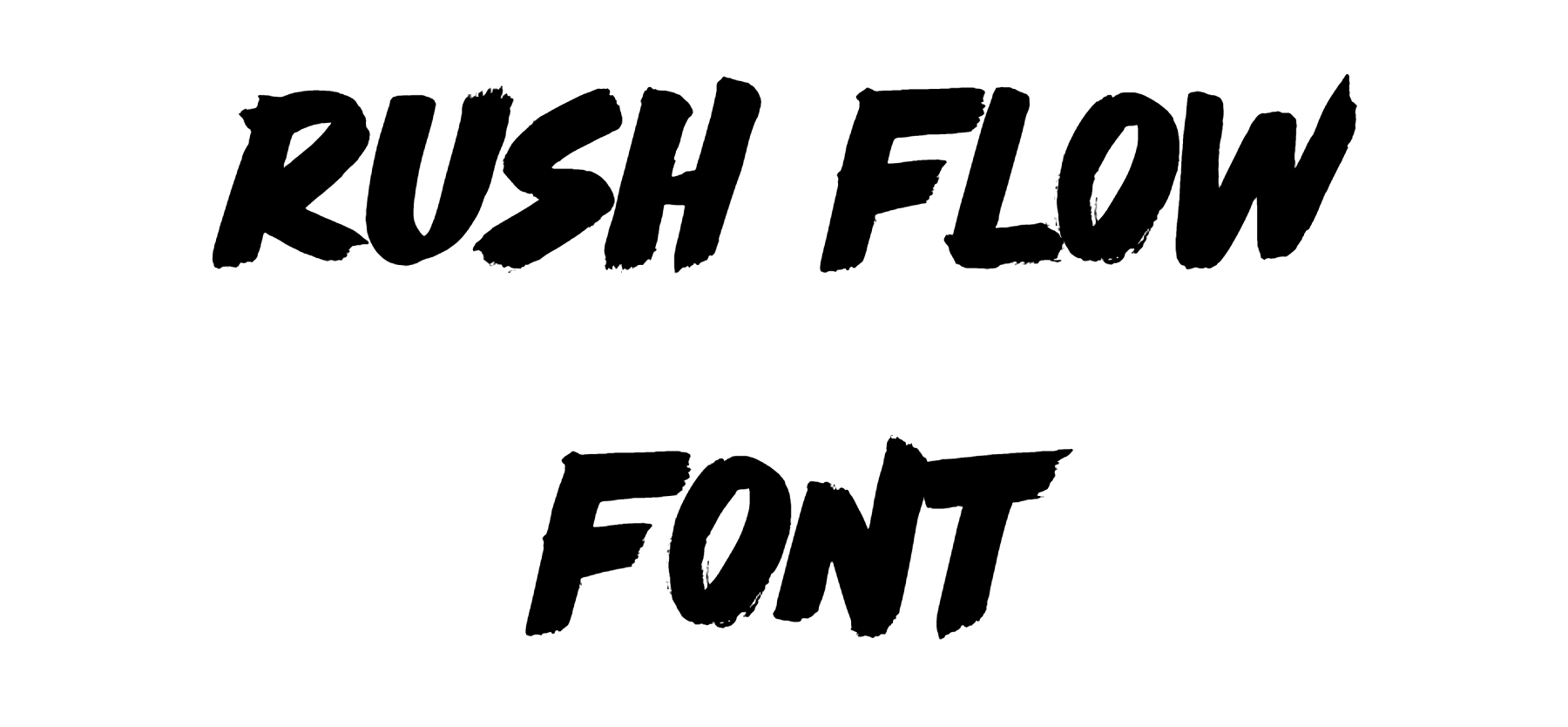
Rush Flow
Rush Flow is a script font created by Riyadh Rahman. It has that hand-lettered, flowing feel people look for when regular type seems too stiff. It's a free download, and you can try it with your own text in the preview above first.
- Designer: Riyadh Rahman
What You Can Type With Rush Flow
Rush Flow covers the full alphabet in upper and lowercase, plus all ten numbers, so you can set names, dates and prices without switching fonts. Common punctuation such as &, !, ? and @ is included as well. It also has the accented letters you need for Spanish, French, German, Portuguese and Italian.
How to Use the Alternate Letters in Rush Flow
Where Rush Flow Works Best
Designers usually reach for fonts like Rush Flow when they're making wedding invitations, logos and signature-style headings. Its lowercase letters are tall compared to the capitals, which keeps it readable at smaller sizes. Script fonts read best in short bursts, so keep it to names, titles and one-line quotes. Skip all caps: script capitals are drawn to start a word, not to fill one.
Does Rush Flow support accented letters?
Yes. Rush Flow includes the accented letters needed for Spanish, French, German, Portuguese and Italian, so it works for more than just English.